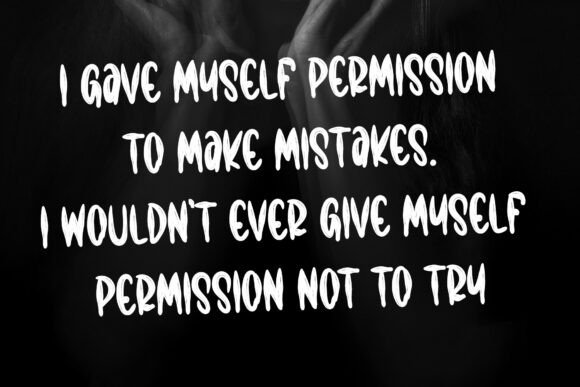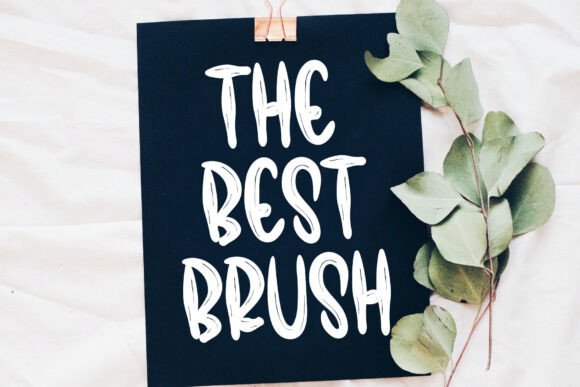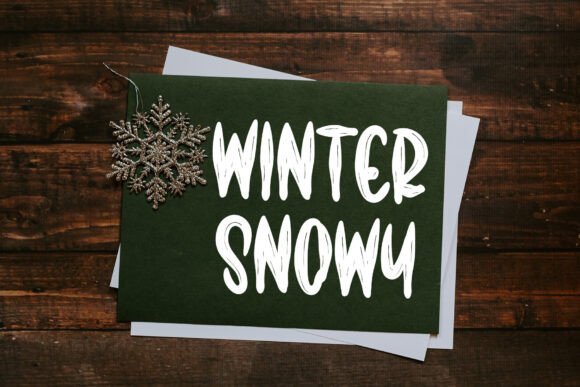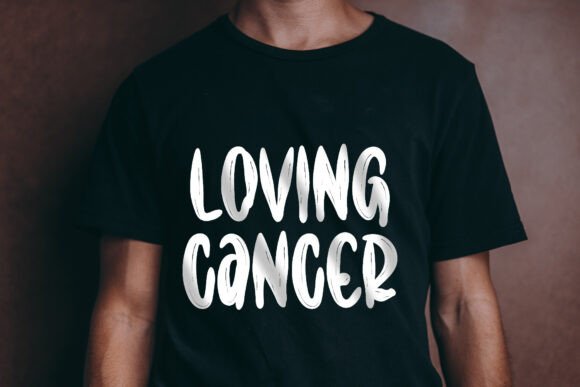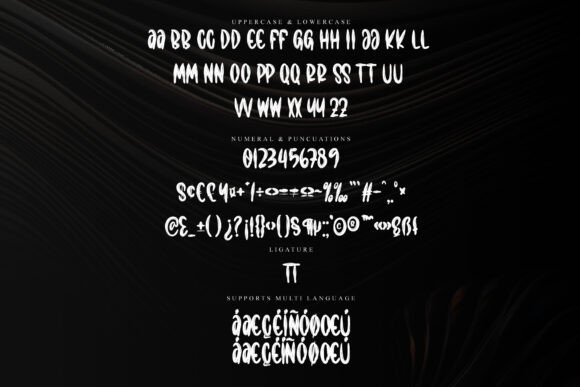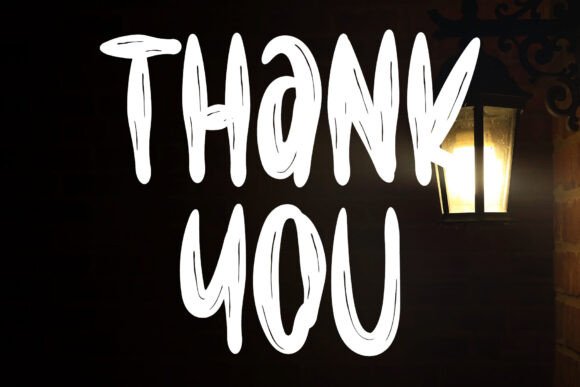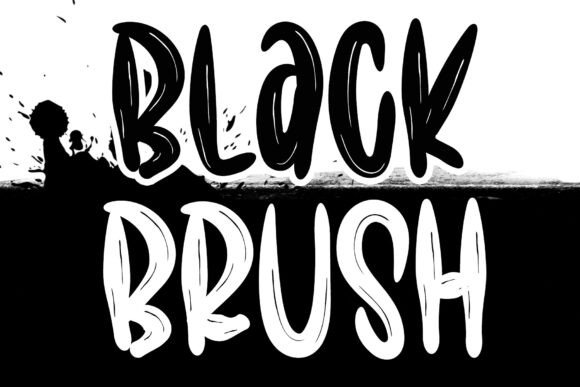
Unleash Your Creativity with Black Brush Font
Are you looking for a font that adds a touch of personality and style to your designs? Look no further than the Black Brush Font. This bold and stylish brush font is perfect for creative designs like posters, logos, and invitations. With its natural, hand-drawn feel, it’s sure to make your text stand out.
The Characteristics of Black Brush Font
Black Brush Font is a unique and eye-catching font that has a number of distinct characteristics. The letters are thick and energetic, giving your text a strong, artistic vibe. The font has a natural, hand-drawn feel, which makes it perfect for designs that require a personal touch. The brush strokes are bold and expressive, with a texture that looks like it was painted with a real brush.
Uses for Black Brush Font
Black Brush Font is a versatile font that can be used for a wide range of design projects. Here are a few ideas to get you started:
- Posters and Flyers: Use Black Brush Font to create eye-catching posters and flyers that grab attention. The bold and energetic letters are perfect for headlines and titles.
- Logos and Branding: Create a unique and memorable logo for your business or brand with Black Brush Font. The font’s natural, hand-drawn feel makes it perfect for creating a personal and artistic brand identity.
- Invitations and Cards: Add a touch of elegance and sophistication to your invitations and cards with Black Brush Font. The font’s bold and expressive letters are perfect for special occasions like weddings, birthdays, and anniversaries.
- Social Media Graphics: Use Black Brush Font to create eye-catching social media graphics that stand out from the crowd. The font’s bold and energetic letters are perfect for creating engaging and shareable content.
Tips for Using Black Brush Font
Here are a few tips for using Black Brush Font in your designs:
- Use it sparingly: Black Brush Font is a bold and expressive font, so it’s best to use it sparingly. Use it for headlines and titles, and pair it with a simpler font for body text.
- Experiment with colors: Black Brush Font looks great in a variety of colors, so don’t be afraid to experiment. Try using it in bold and bright colors to add a pop of personality to your designs.
- Pair it with other fonts: Black Brush Font pairs well with a variety of other fonts, so try experimenting with different combinations. Some good options include sans-serif fonts like Arial or Helvetica.
The Benefits of Using Black Brush Font
There are a number of benefits to using Black Brush Font in your designs. Here are a few:
- Unique and eye-catching: Black Brush Font is a unique and eye-catching font that is sure to make your text stand out.
- Natural and artistic: The font’s natural, hand-drawn feel makes it perfect for designs that require a personal and artistic touch.
- Versatile: Black Brush Font is a versatile font that can be used for a wide range of design projects.
Black Brush Font is a bold and stylish brush font that is perfect for creative designs like posters, logos, and invitations. With its natural, hand-drawn feel and bold and energetic letters, it’s sure to make your text stand out. Whether you’re a designer, crafter, or DIY enthusiast, Black Brush Font is a great addition to your font collection.